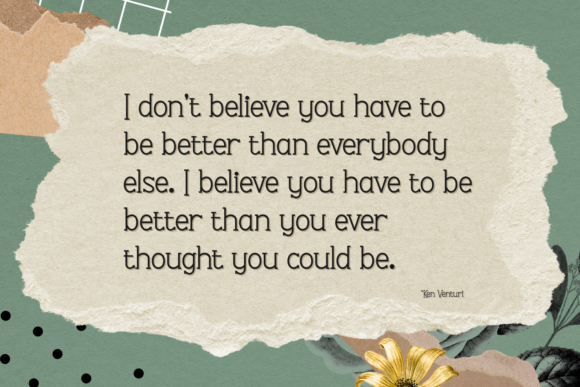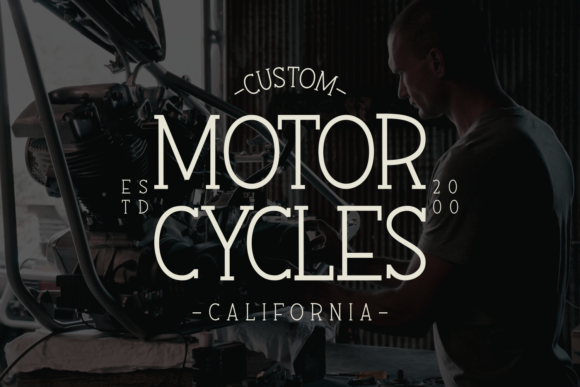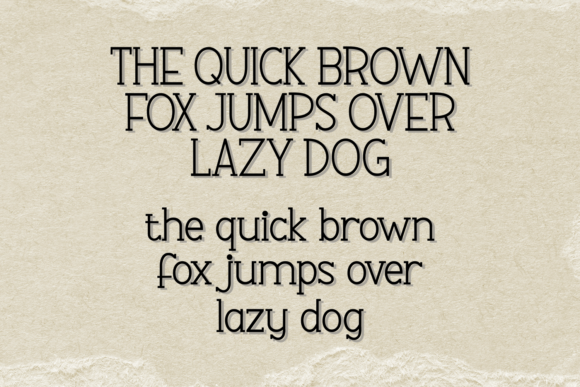
Introduction to Basquat Font
Basquat is a modern and well-rounded serif font that will satisfy all your design needs.
The characters are neat and equally carved to create an outstandingly clean and exquisite appearance on any item .
Key Features of Basquat Font
Why Choose Basquat Font?